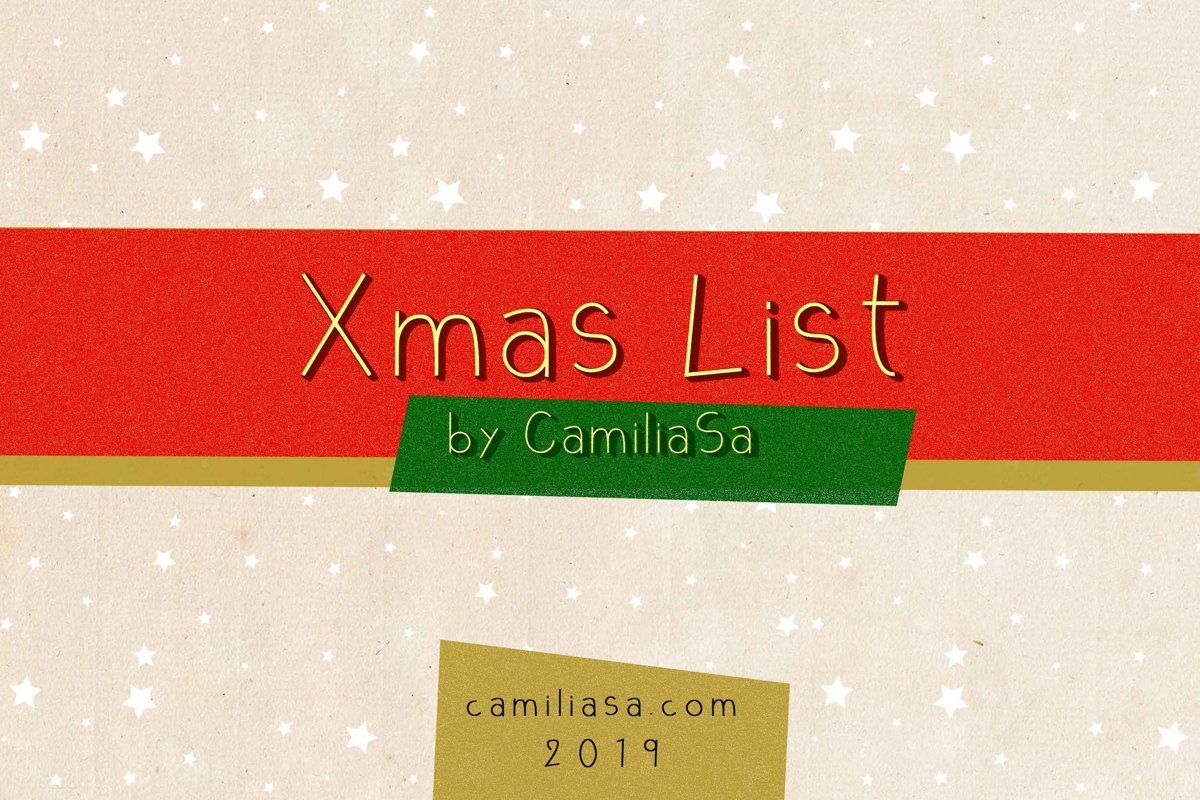
Xmas List Regular - A festive Christmas sans serif font !
Xmas List Regular is the perfect handmade font for the holiday season.
Get inspired by its festive feel!